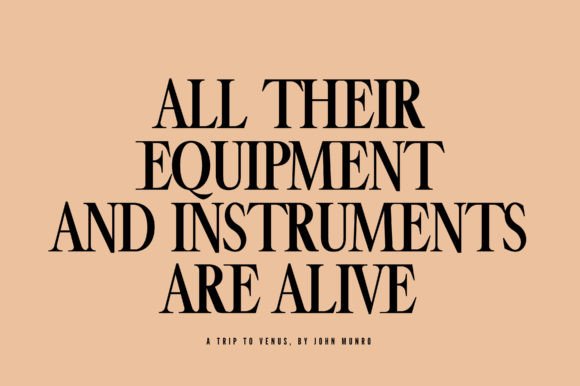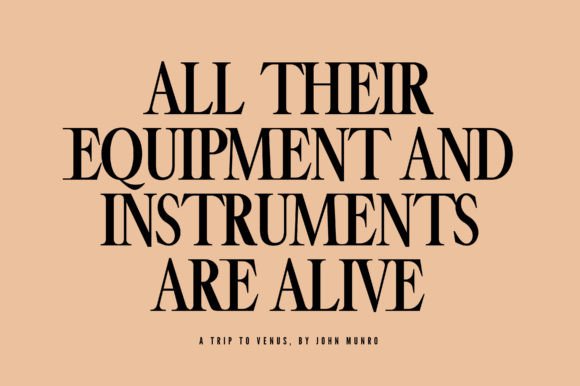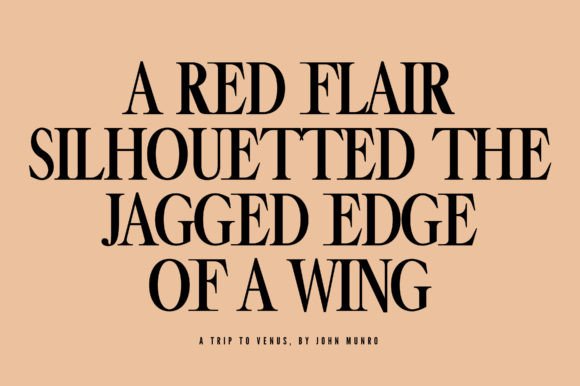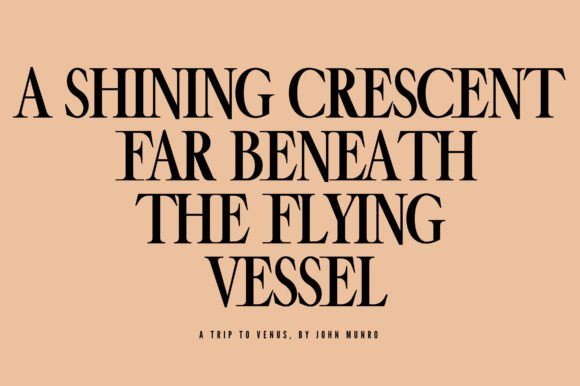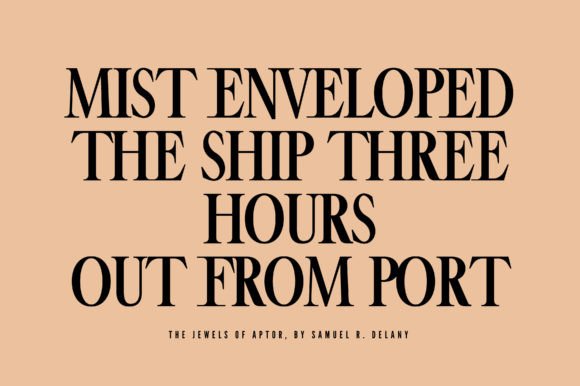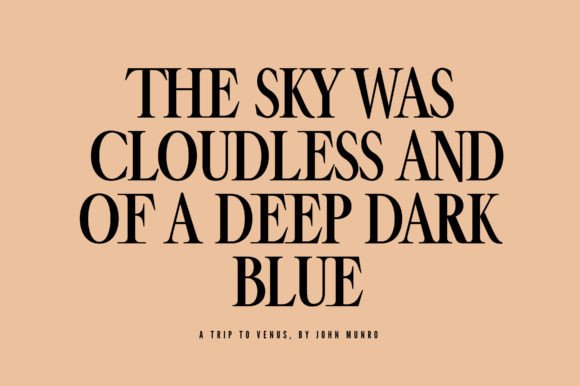
Introducing Fimeux Font: Elevate Your Designs with Timeless Elegance
Are you a designer seeking to add a touch of class and sophistication to your work? Look no further than Fimeux Font, the ultimate choice for those who appreciate refined and elegant typography. This chic serif font is the epitome of timeless design, boasting a classic and sophisticated appearance that will elevate your designs to new heights.
A Versatile Typeface with Endless Possibilities
Fimeux is more than just a pretty font. With an impressive collection of over 570 glyphs, it’s a versatile typeface that can adapt to any design project. Whether you’re creating a logo, a website, or a magazine layout, Fimeux’s extensive character set provides endless possibilities for typography. This means you can experiment with different styles, from elegant and refined to bold and eye-catching, all while maintaining a consistent visual identity.
Multilingual Support for Global Brands
But what makes Fimeux truly exceptional is its multilingual support. This font is designed to accommodate various languages, making it the perfect choice for international brands and businesses. Whether you’re creating marketing materials for a global audience or designing a website that caters to multiple languages, Fimeux has got you covered. With Fimeux, you can ensure that your message is conveyed with clarity and sophistication, regardless of the language or region.
Exuding Luxury and Refinement
So, what sets Fimeux apart from other fonts? The answer lies in its sense of sophistication. This font exudes luxury and refinement, making it ideal for high-end products and services. Whether you’re creating a brochure for a luxury hotel, designing an invitation for a black-tie event, or developing branding materials for a premium fashion brand, Fimeux will elevate your design to the next level. Its elegant and refined appearance will instantly convey a sense of high-end quality, making it perfect for designs that demand sophistication.
Why Choose Fimeux Font?
So, why choose Fimeux Font for your design projects? Here are just a few compelling reasons:
- Timeless elegance: Fimeux boasts a classic and refined appearance that will never go out of style.
- Versatility: With over 570 glyphs, Fimeux can adapt to any design project, from logos to websites and magazine layouts.
- Multilingual support: Fimeux is designed to accommodate various languages, making it perfect for international brands and businesses.
- Luxury and refinement: Fimeux exudes sophistication, making it ideal for high-end products and services.
In conclusion, Fimeux Font is a game-changer for designers seeking to add a touch of class and sophistication to their work. With its impressive collection of glyphs, multilingual support, and sense of luxury and refinement, Fimeux is the perfect choice for any design project that demands elegance and sophistication. Whether you’re a seasoned designer or just starting out, Fimeux Font is an essential tool that will help you create stunning designs that leave a lasting impression.